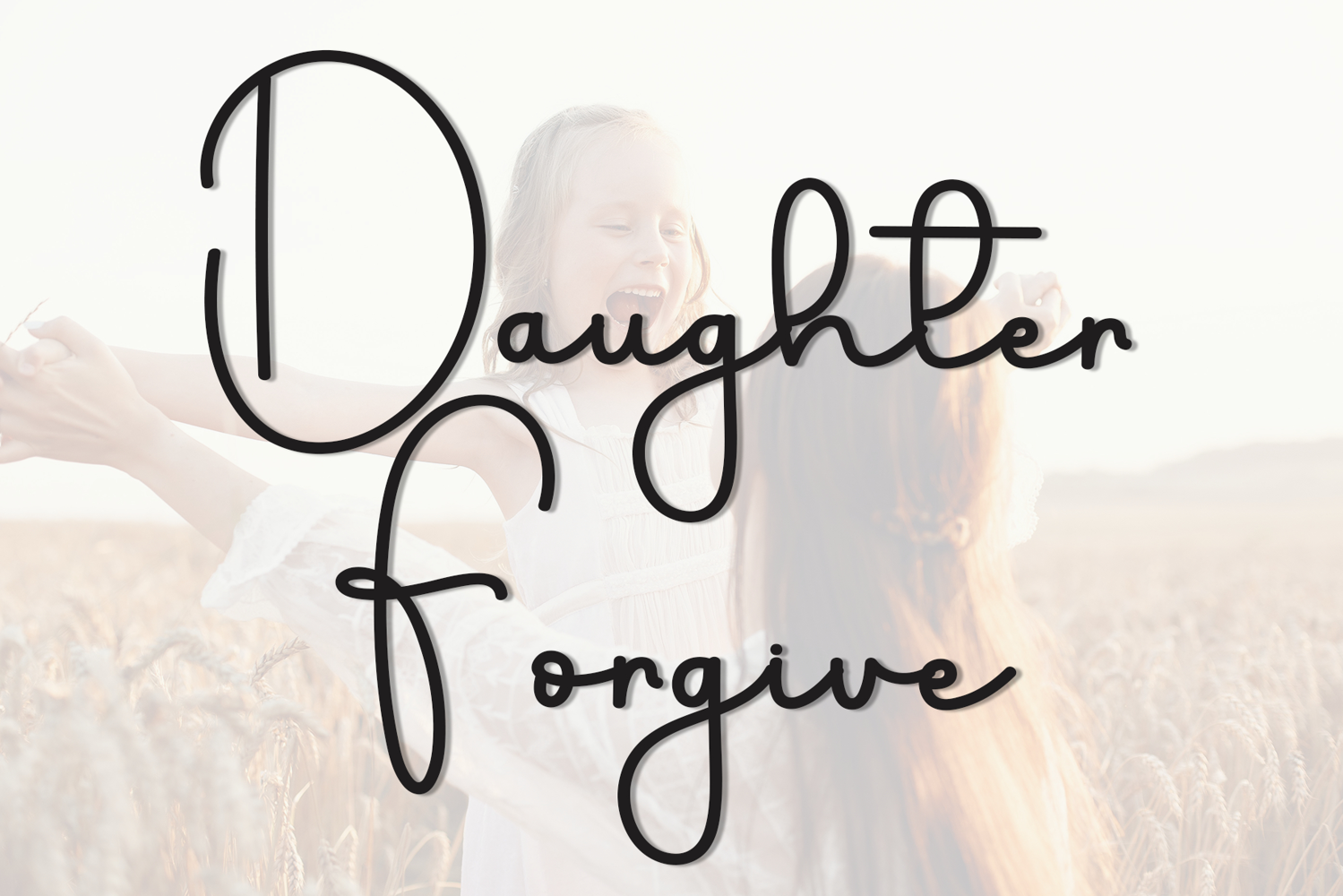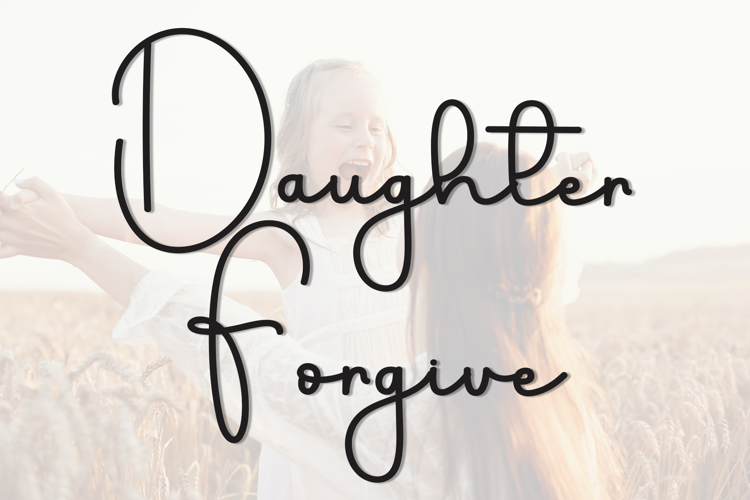
Daughter Forgive
Daughter Forgive is a beautiful and eye-catching font designed with a soft, unique touch. Its distinctive strokes give it a special character, making it meaningful and versatile for future use. With various characters, it’s perfect for design projects, crafts, and other creative works.